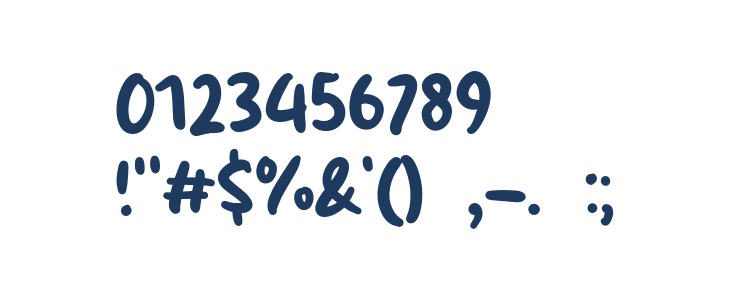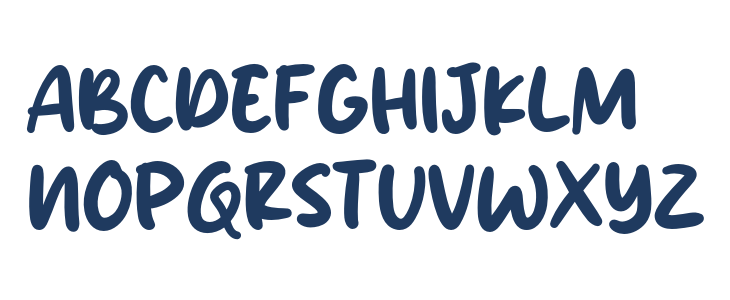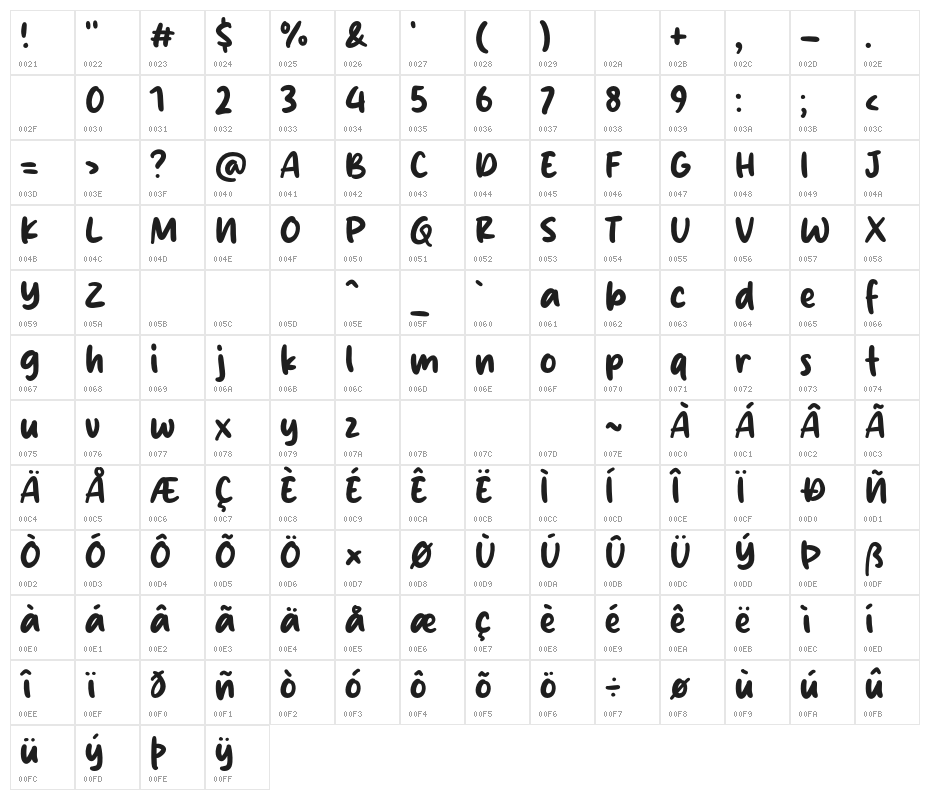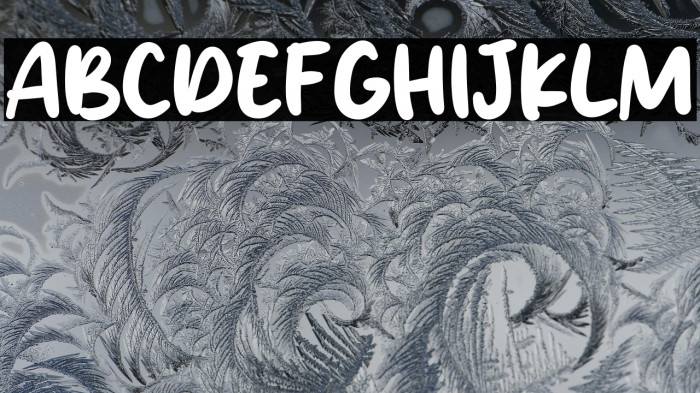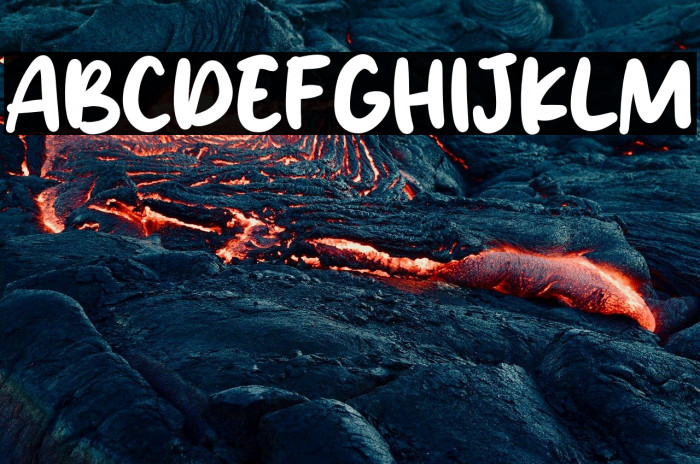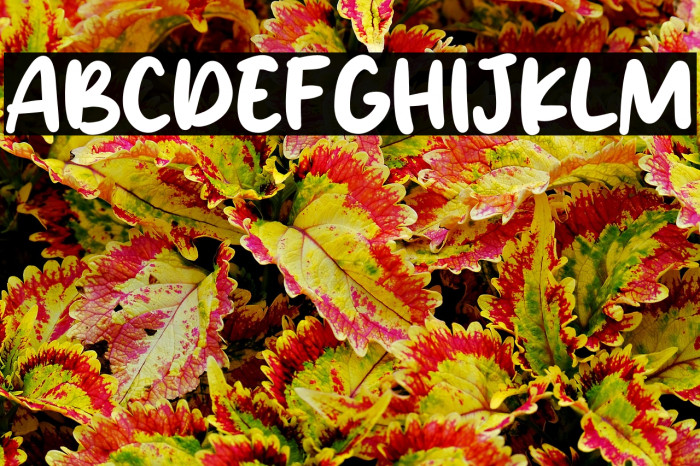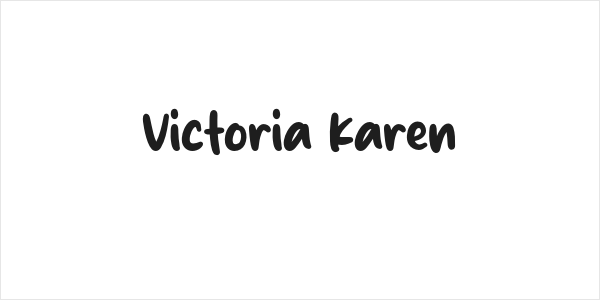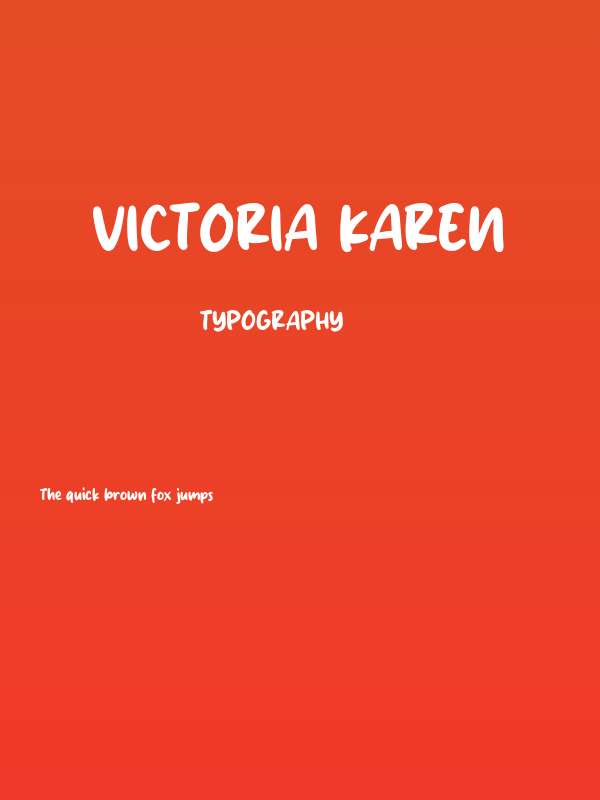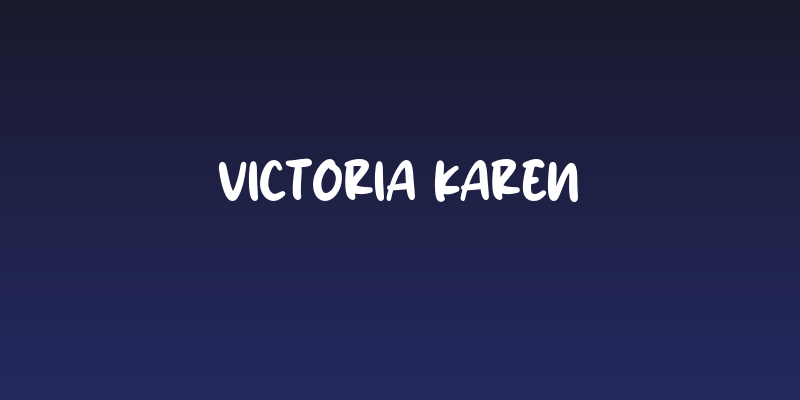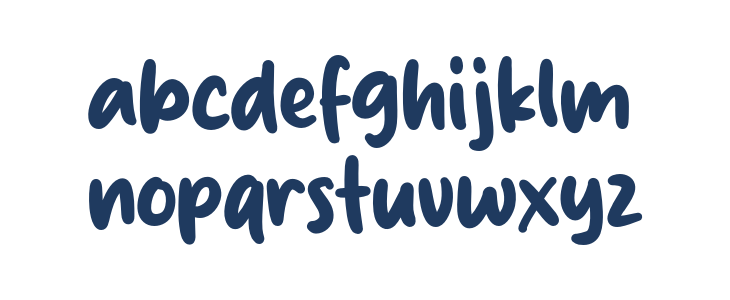
Victoria Karen Font
Victoria Karen Description
A playful, rounded handwritten typeface with bold strokes and casual, friendly letterforms. The characters have a consistent thickness and a slightly irregular, organic appearance, giving it a personal and approachable feel.
| Overall Style | Playful, Casual, Friendly |
| Use Case | Headlines, Logos, Posters, Informal branding |
| Proposed Projects | Children's books, greeting cards, posters, branding for informal products, social media graphics. |